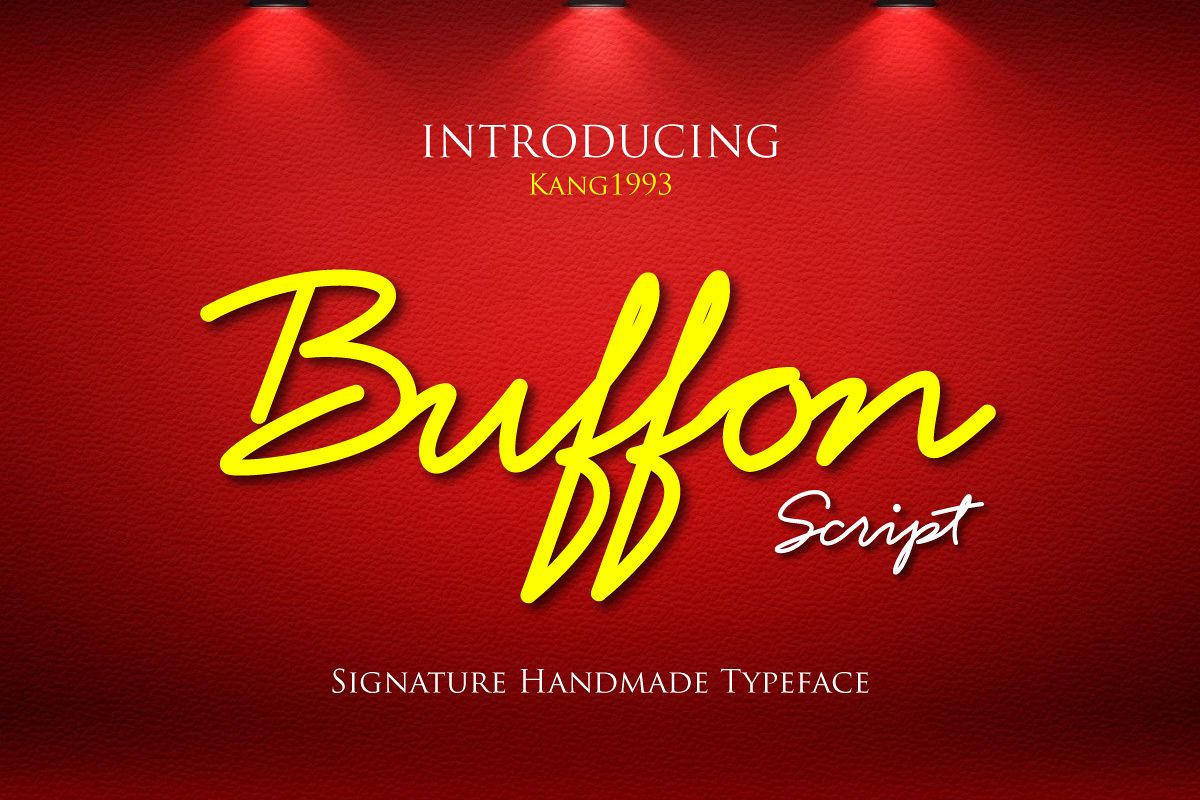
Buffon Script
Buffon
Give your designs an authentic handcrafted feel. "Buffon" is perfectly suited to signature, stationery, logo, typography quotes, magazine or book cover, website header, clothing, branding, packaging design, business card and more.